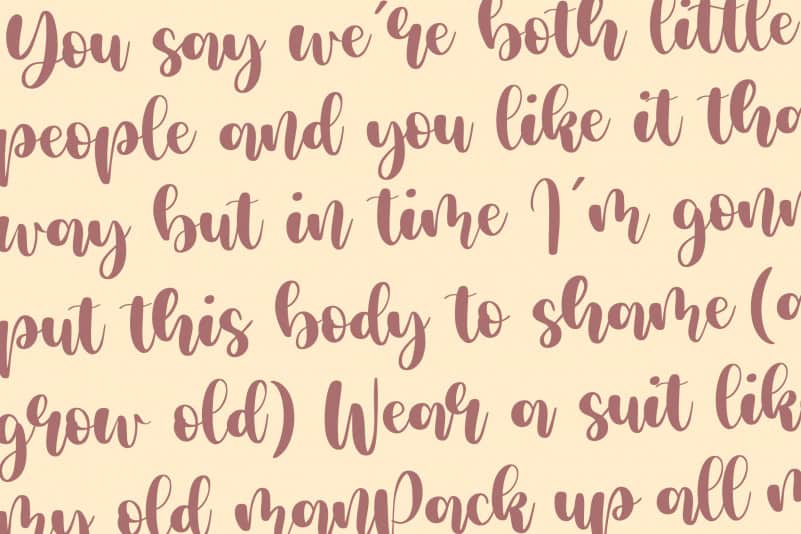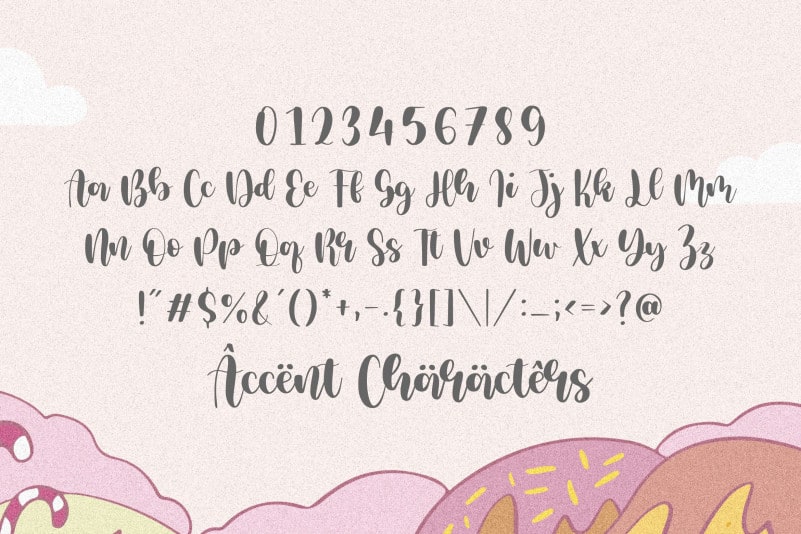
Milcandy Lovely Handwritten Font
Proudly Present, Milcandy Lovely Handwritten Font.
Milcandy is a Lovely Handwritten font.
It is perfect for product packaging, branding project, megazine, social media, wedding, or just used to express words above the background.